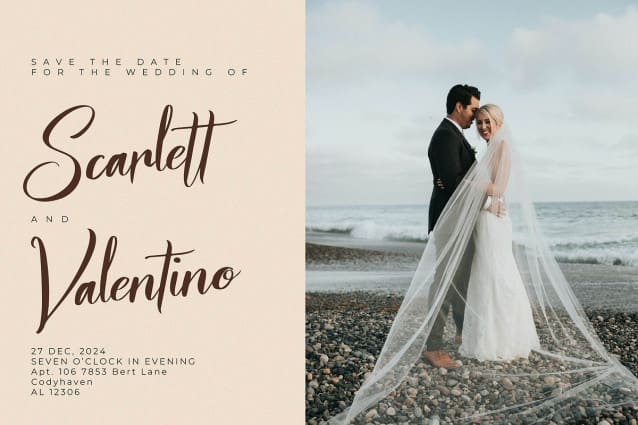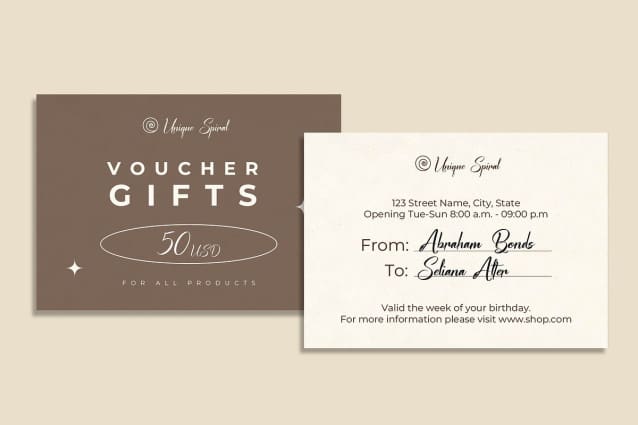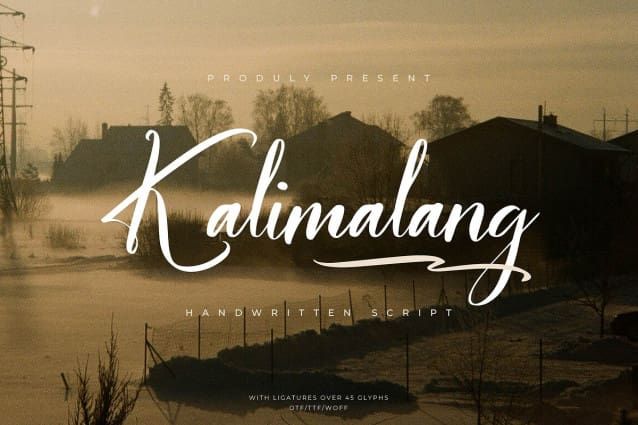
Kalimalang Font
Kalimalang Font | Handwritten Script, from Gracetypestudio, suitable for any projects such as: logos, branding projects, homeware designs, product packaging, mugs, quotes, posters, shopping bags, t-shirts, book covers, name card, invitation cards, greeting cards, label, photography, watermark, special events, and all your other lovely projects that need a beautiful script taste.